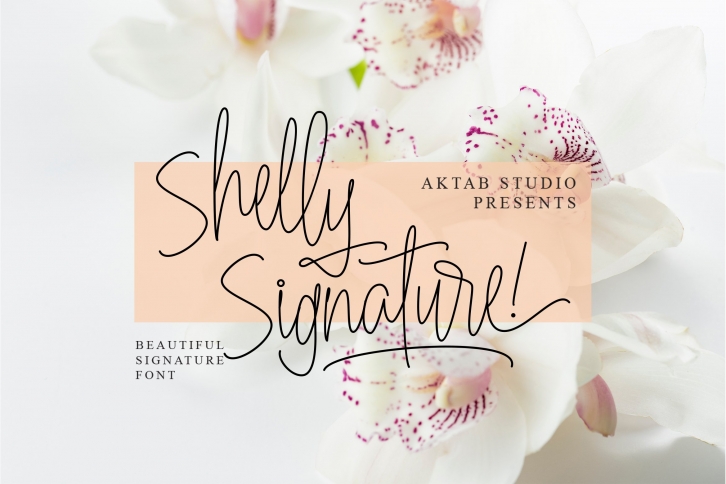
Shelly Signature is a signature script font based on fashion logo. This collection of scripts is perfect for personal branding, wedding, magazine, card design and many more design what you want.